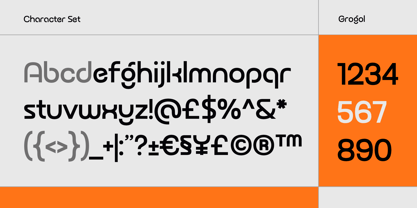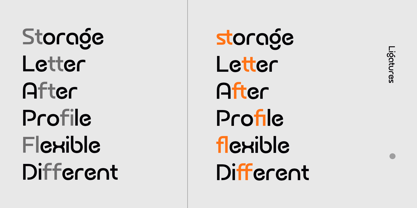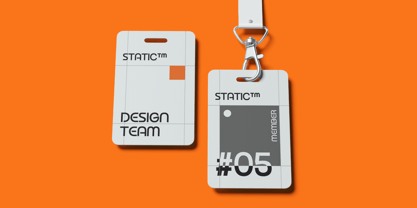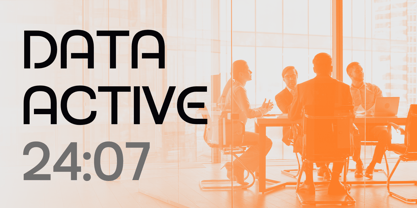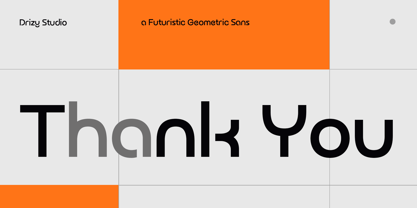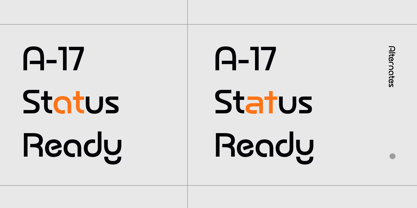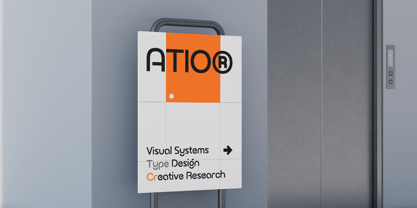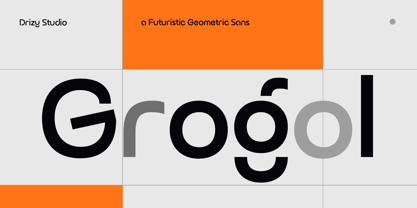
Grogol
por Drizy Font
La familia tipográfica Grogol fue diseñada por Panca Ahmadi Hasan y publicada por Drizy Font. Grogol contiene 1 estilos. Más información sobre esta familia
Grogol – Futuristic Geometric Sans Font
Grogol is a futuristic geometric sans font designed with clean lines, bold proportions, and a distinctive modern character. Its structured and minimal letterforms create a sleek, tech-inspired aesthetic while maintaining strong readability, making it ideal for logos, branding, posters, headlines, editorial layouts, packaging, websites, and creative visual identities. Perfect for projects that need a contemporary, geometric, and forward-thinking typographic style.
Diseñadores: Panca Ahmadi Hasan
Fundición: Drizy Font